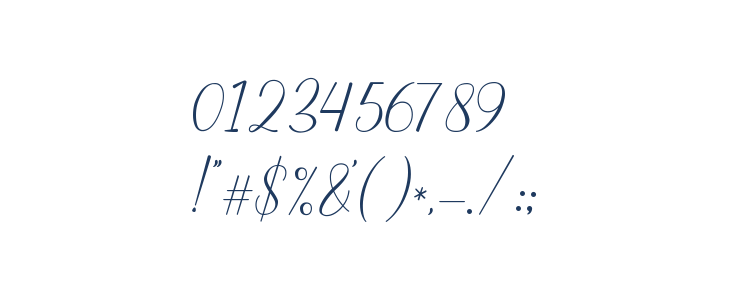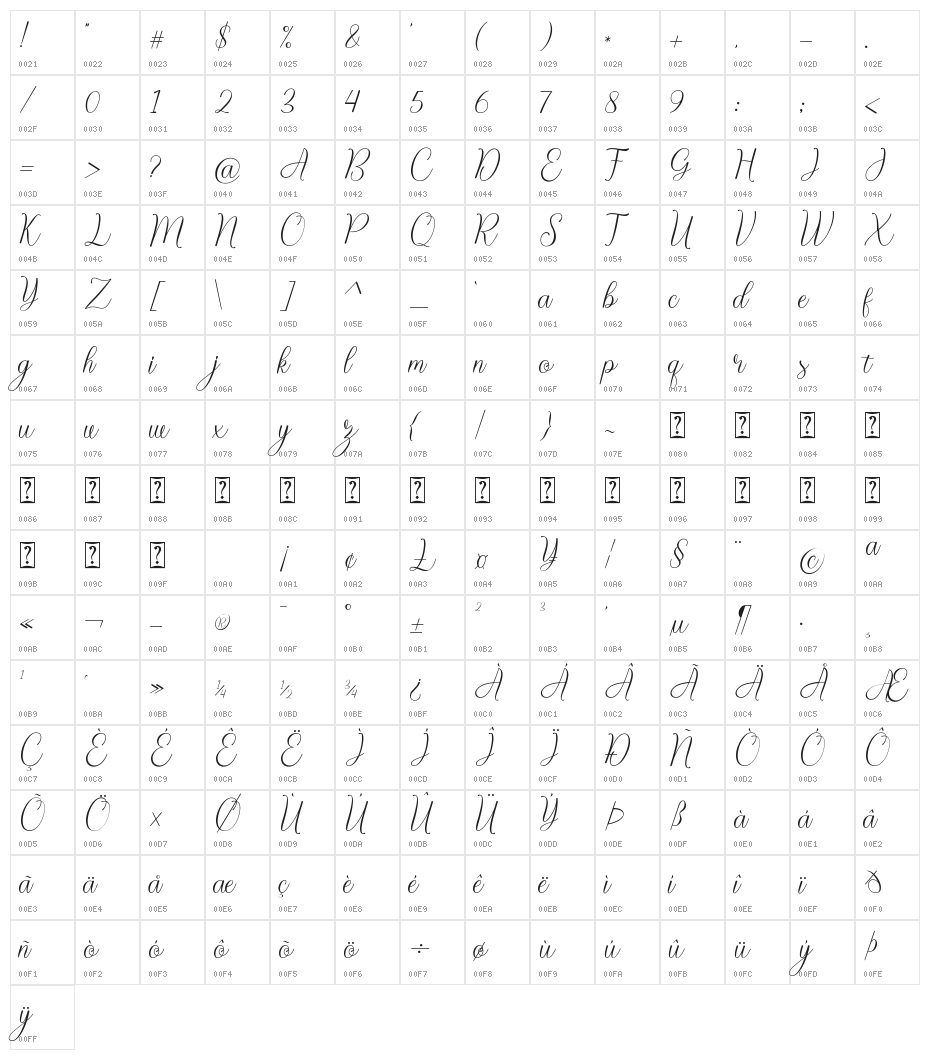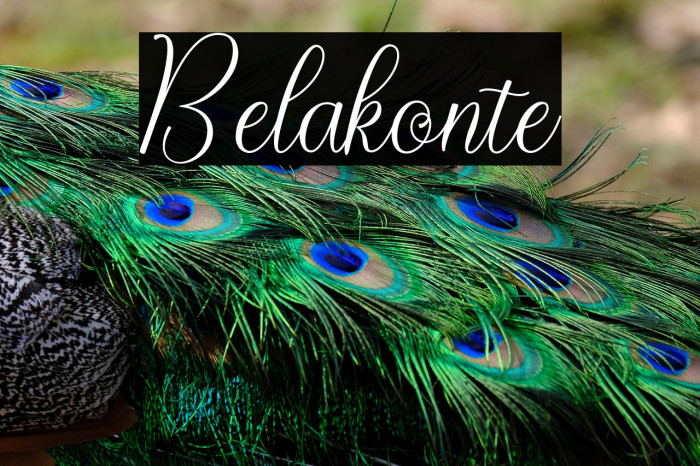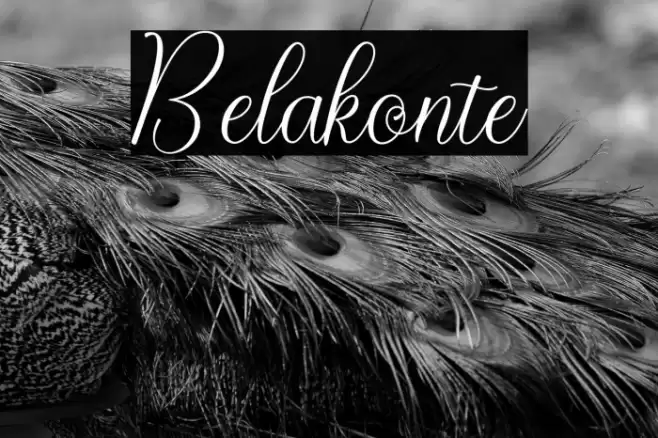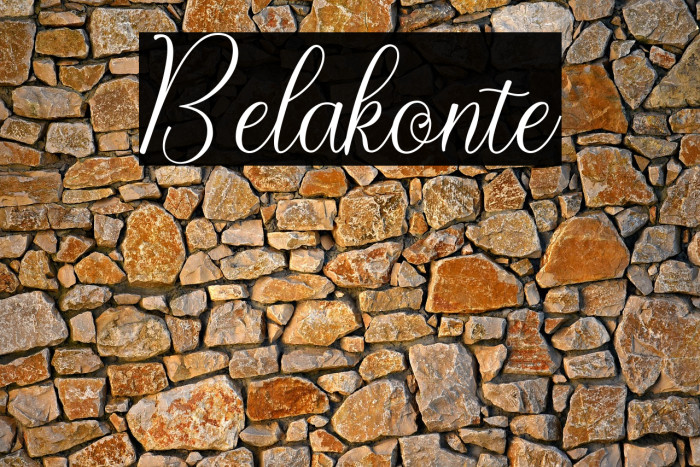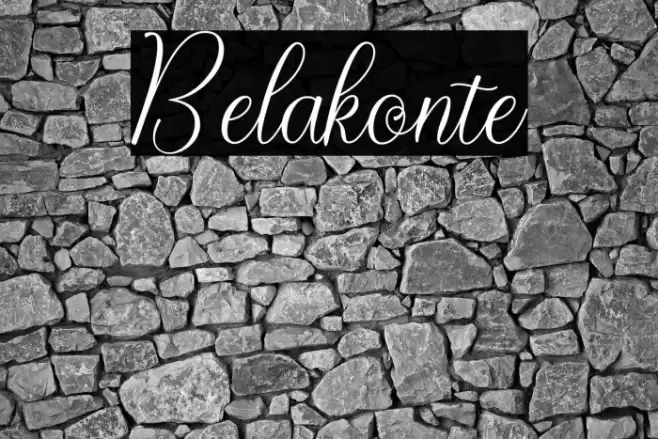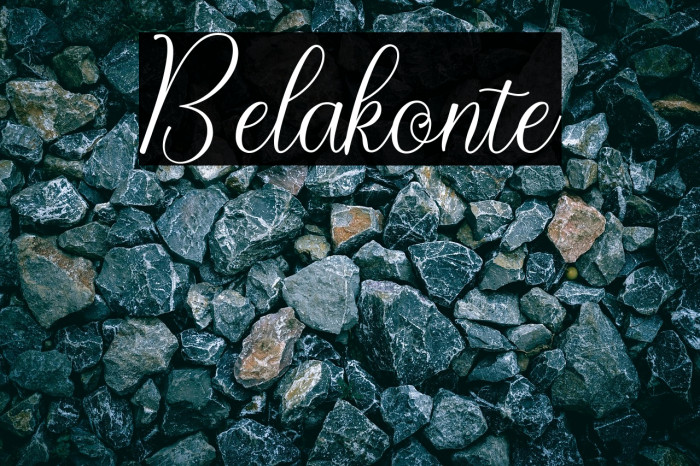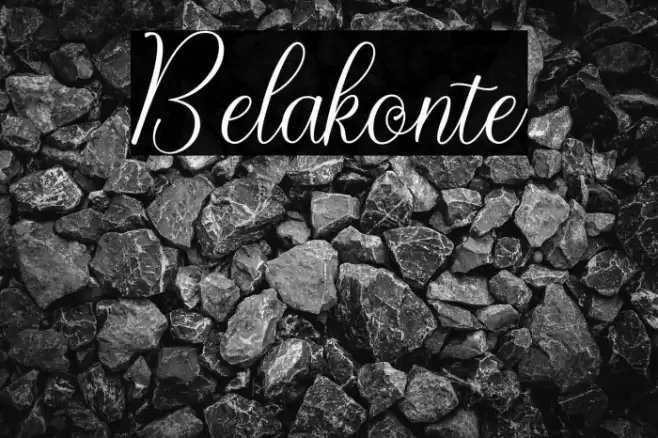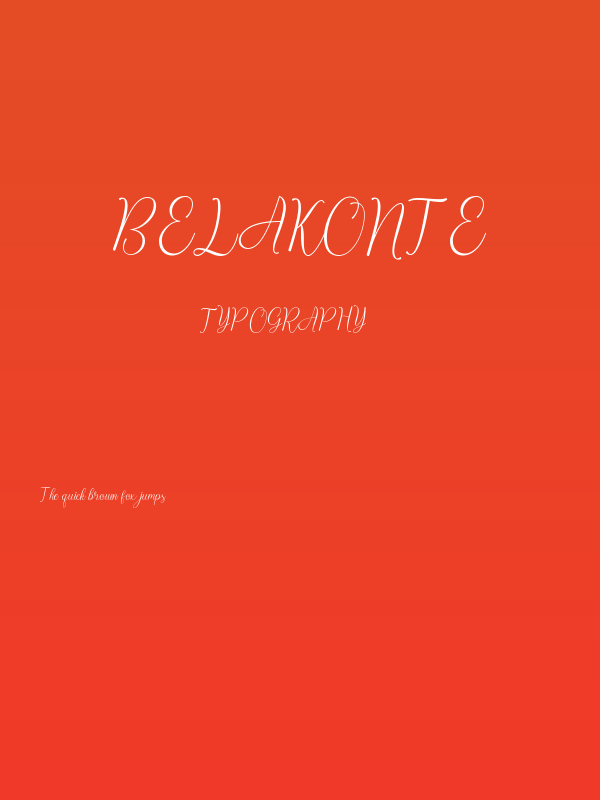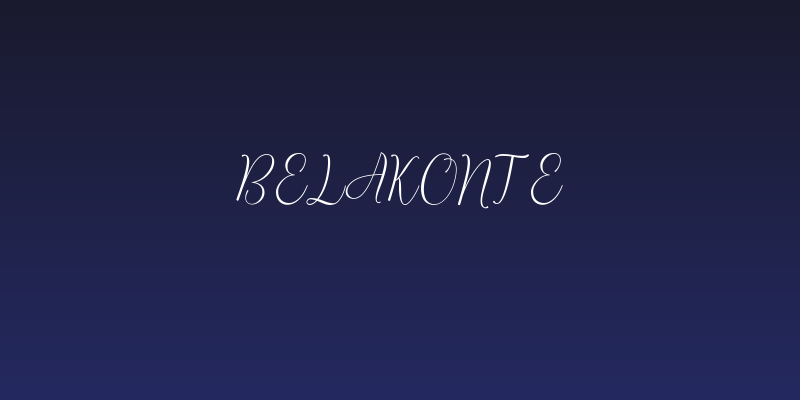
Belakonte Font
Belakonte Description
This elegant script font features flowing, interconnected characters with a sophisticated flair. The uppercase letters are tall and graceful, with delicate curves and loops that add a touch of refinement. The lowercase letters maintain a consistent style, with smooth transitions and a slightly slanted orientation, enhancing the overall fluidity. The numerals are designed to match the script's elegance, with a balanced height and width that ensures readability. Special characters are crafted with the same attention to detail, making them seamlessly integrate with the rest of the font. This font is perfect for projects that require a touch of elegance and sophistication, such as wedding invitations, formal event programs, or luxury brand logos.
| Use Case | Logos, Invitations, Stationery |
| Proposed Projects | Wedding invitations, luxury brand logos, formal event programs, elegant stationery. |